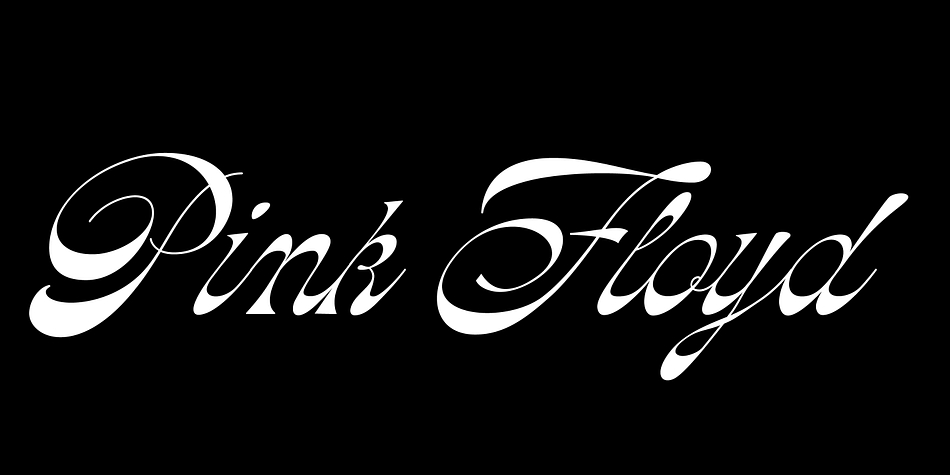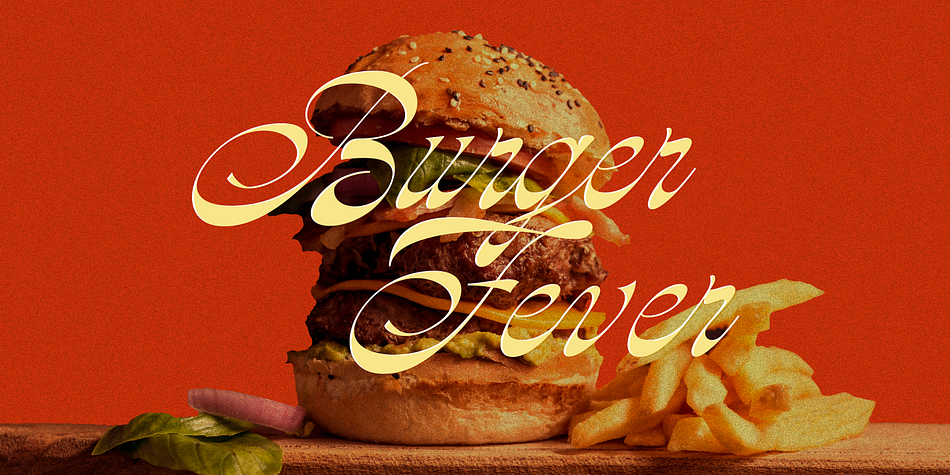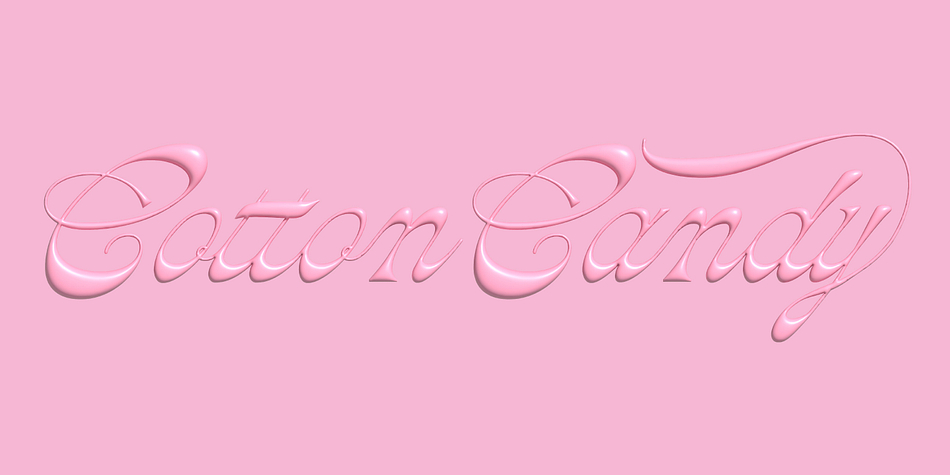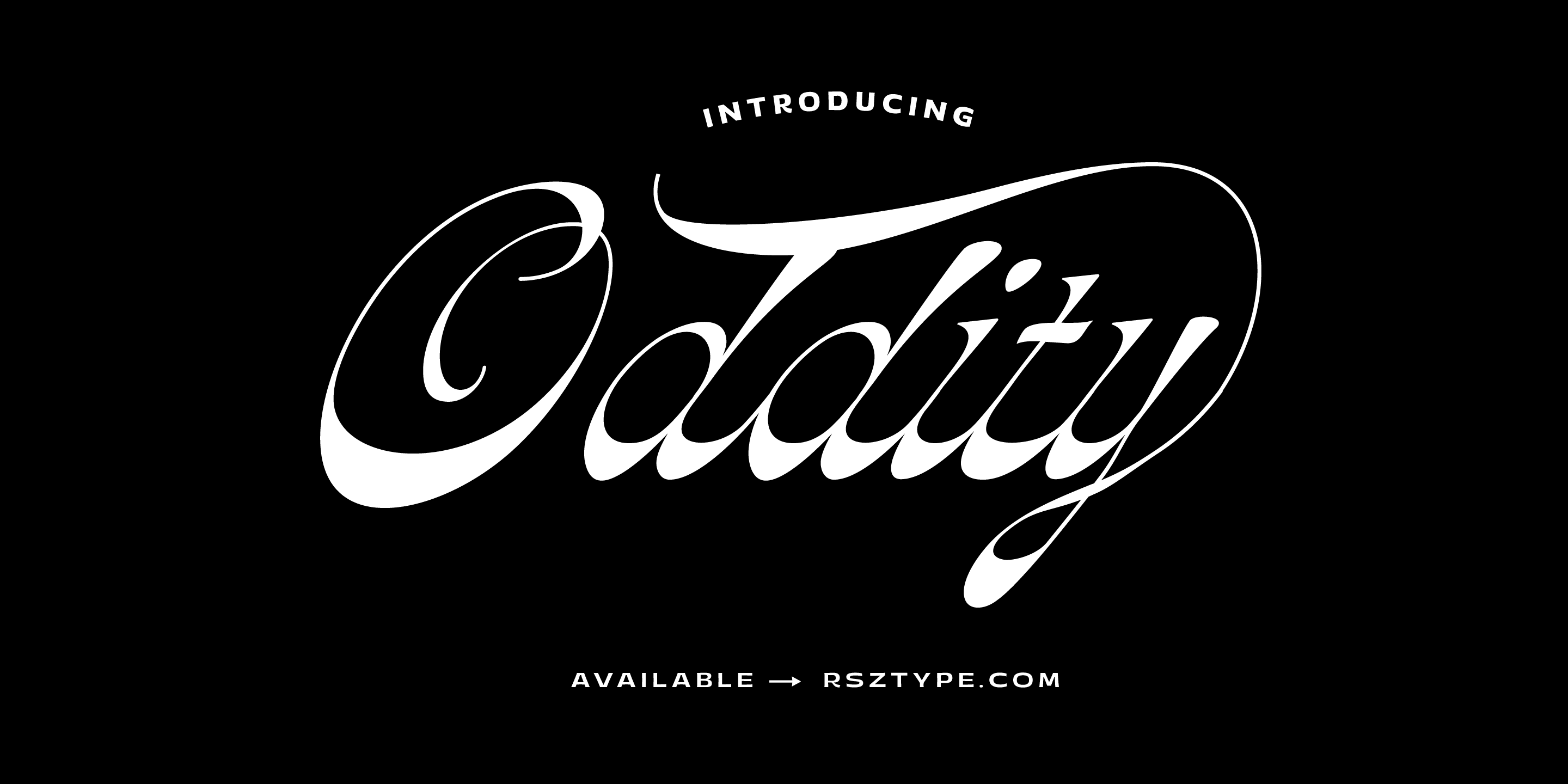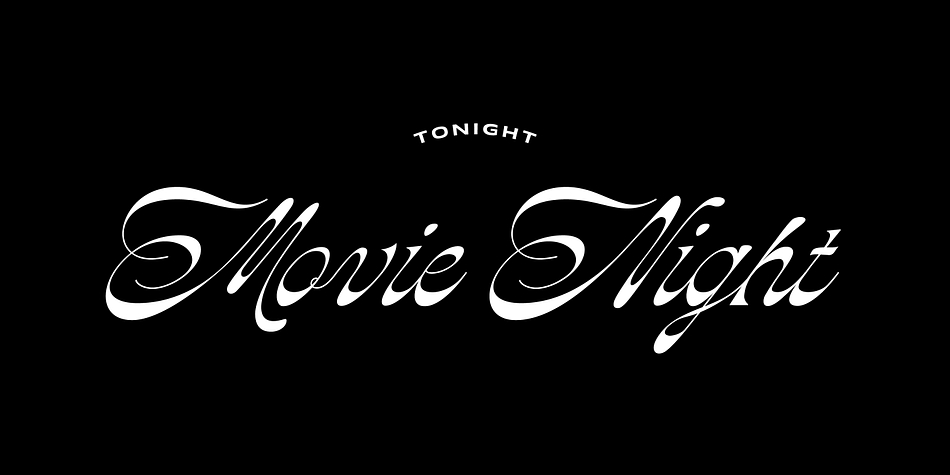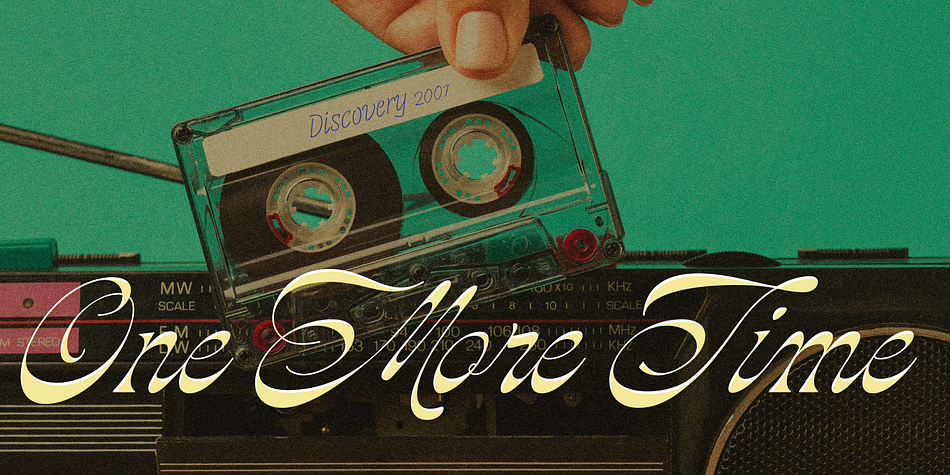
Oddity
Designed by Giuseppe Salerno and Paco González, Oddity is a retro, script and western font family published by Resistenza.es.
Oddity is a calligraphic script font with reversed contrast with some exceptions in some letters, adding more legibility and rhythm . This new typeface has Lo-fi Nostalgia vibes, a tribute to a past era. Experimenting and breaking the rules we got to create a really openminded letterset. Based on English calligraphy and Nautica Font, changing the contrast we got these classy 70s flavour font face. Its modern look is adapted to our days having a very contemporary view on vintage design trends. Perfect to use in quote designs, it looks exceptional in big titles. You can also use this font in posters, branding, magazines, book covers, packaging, products.